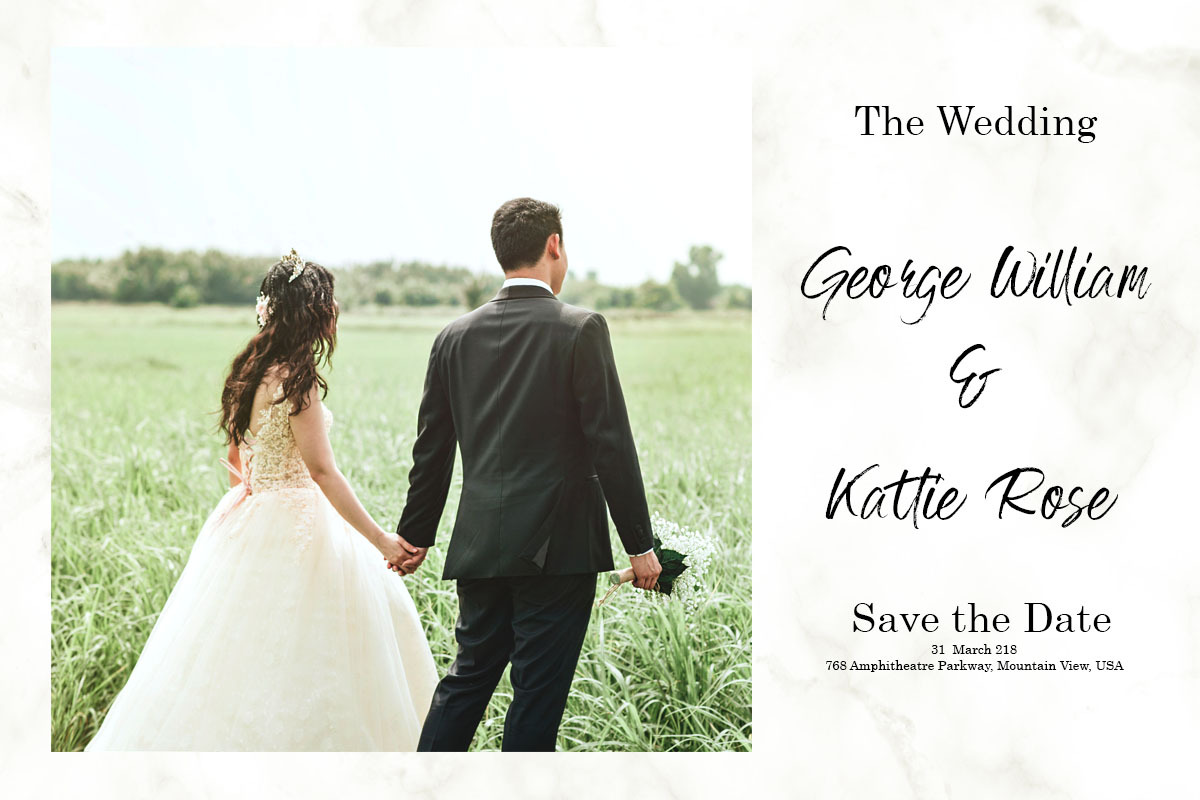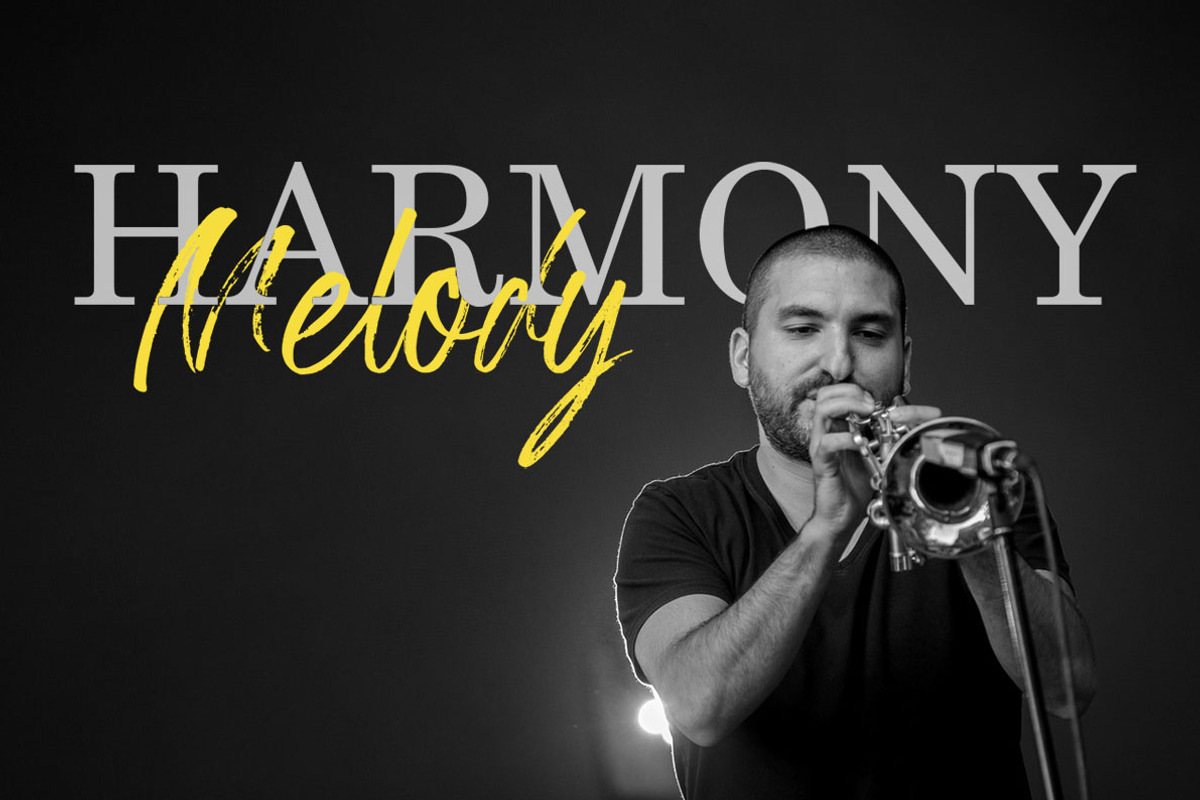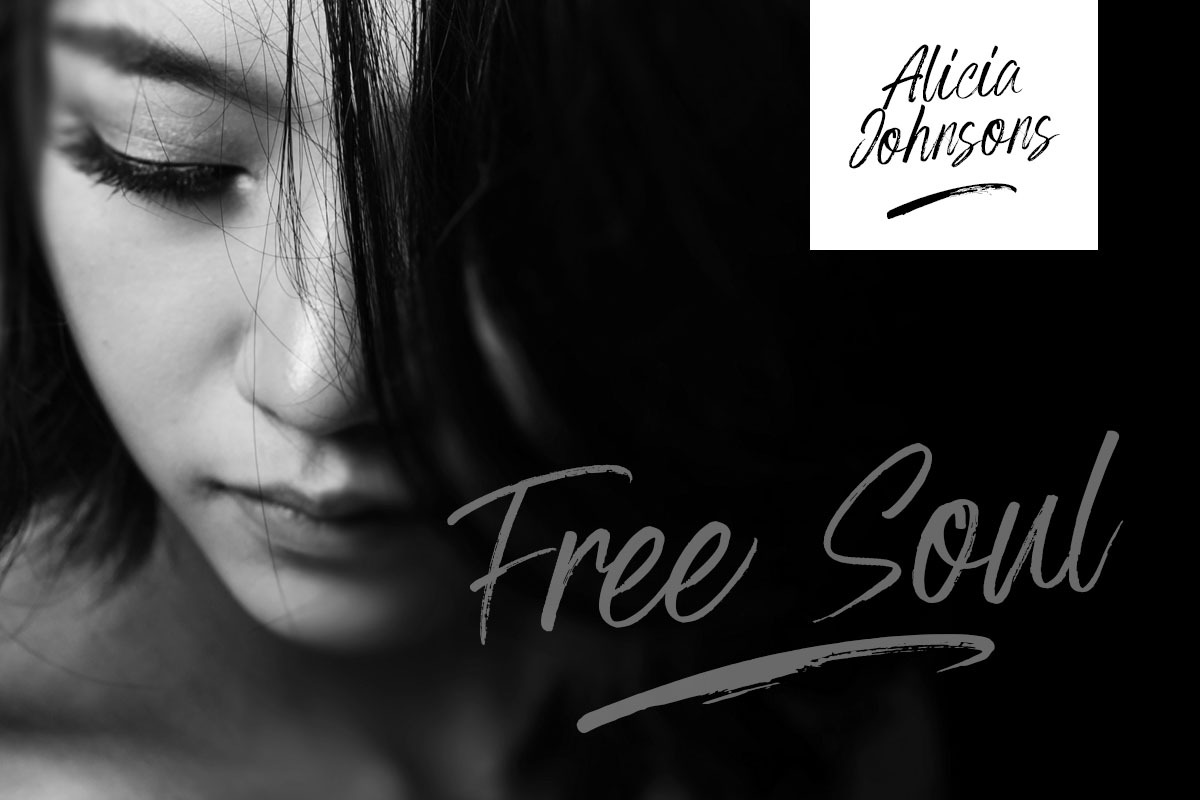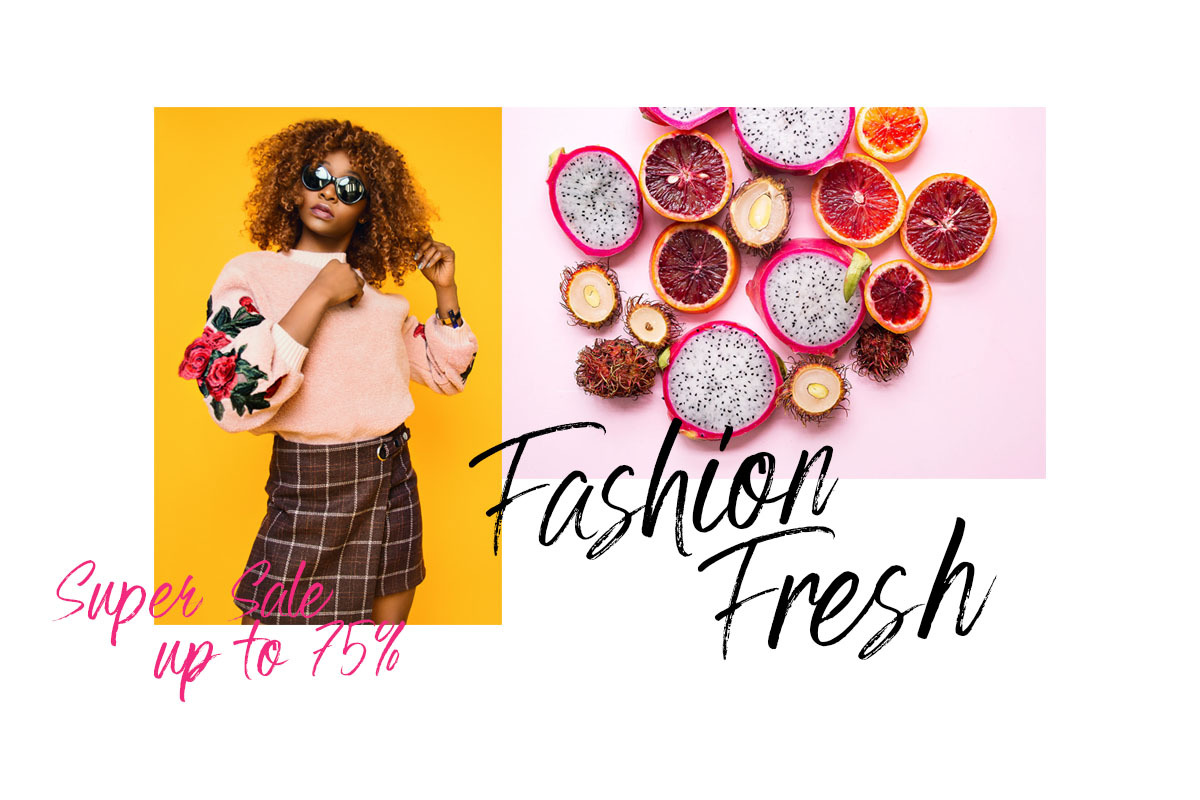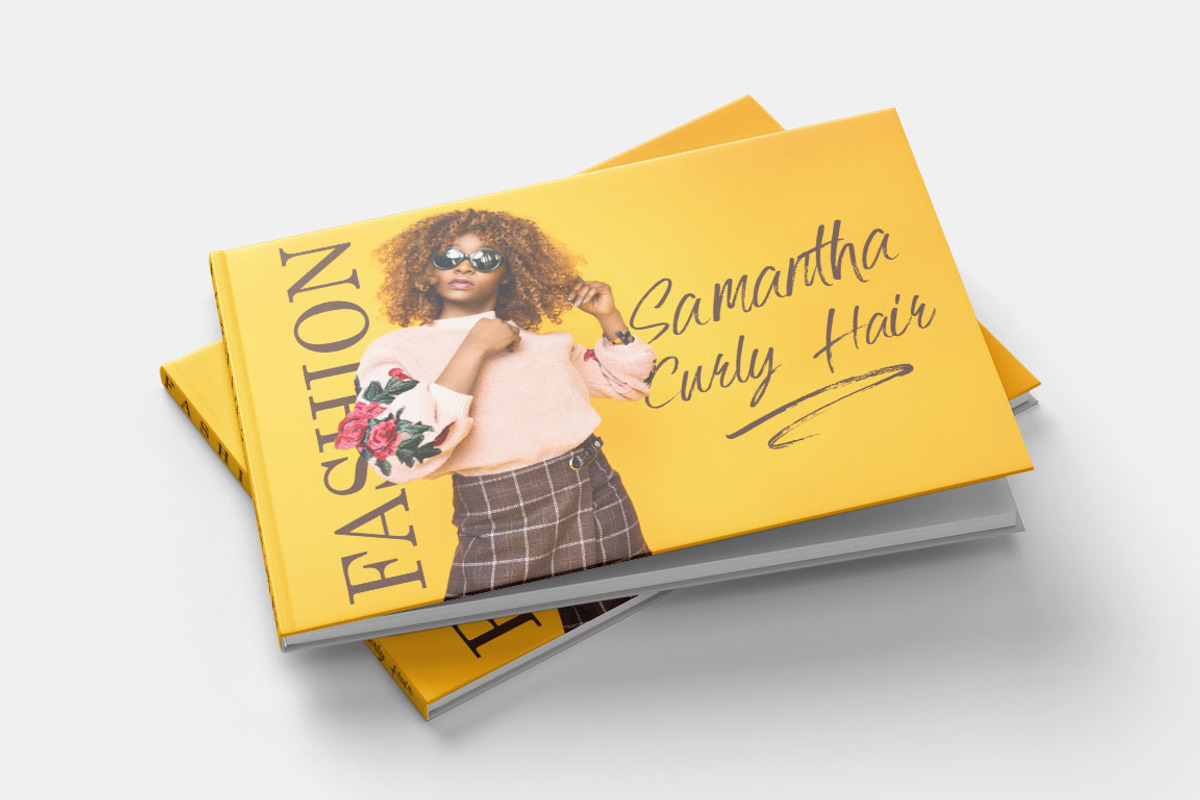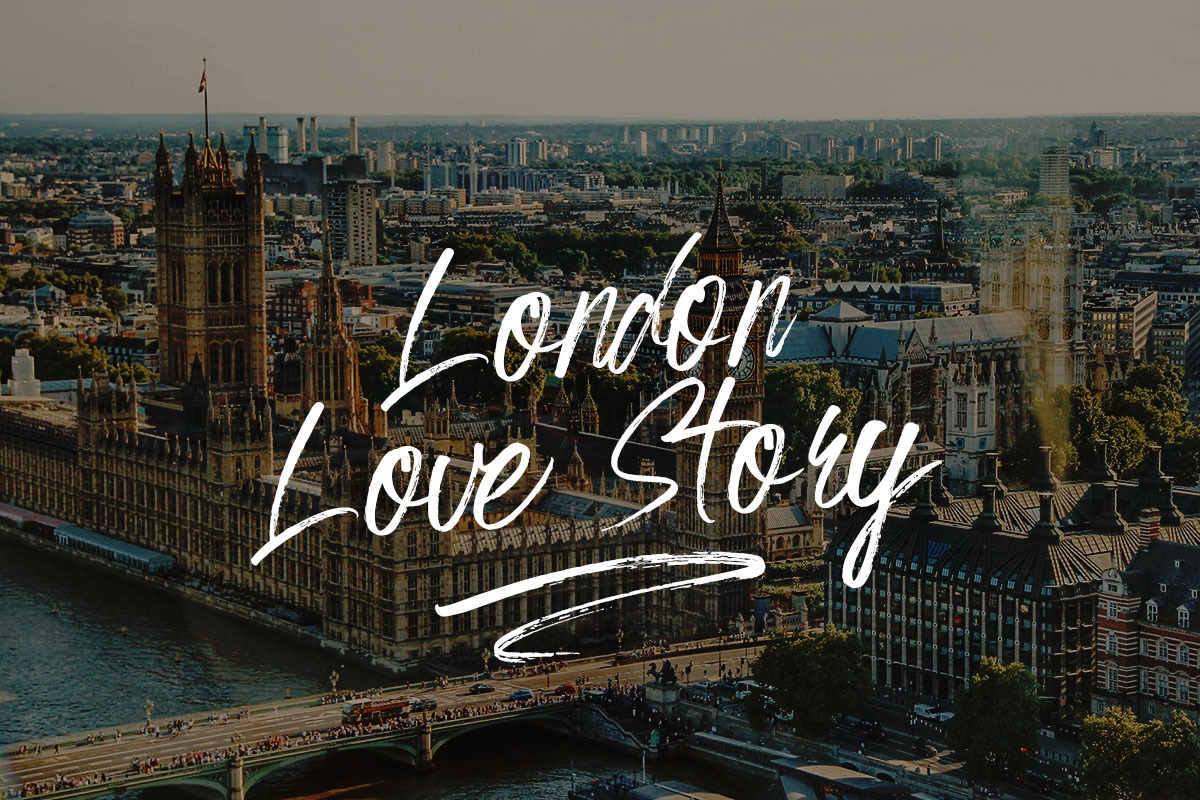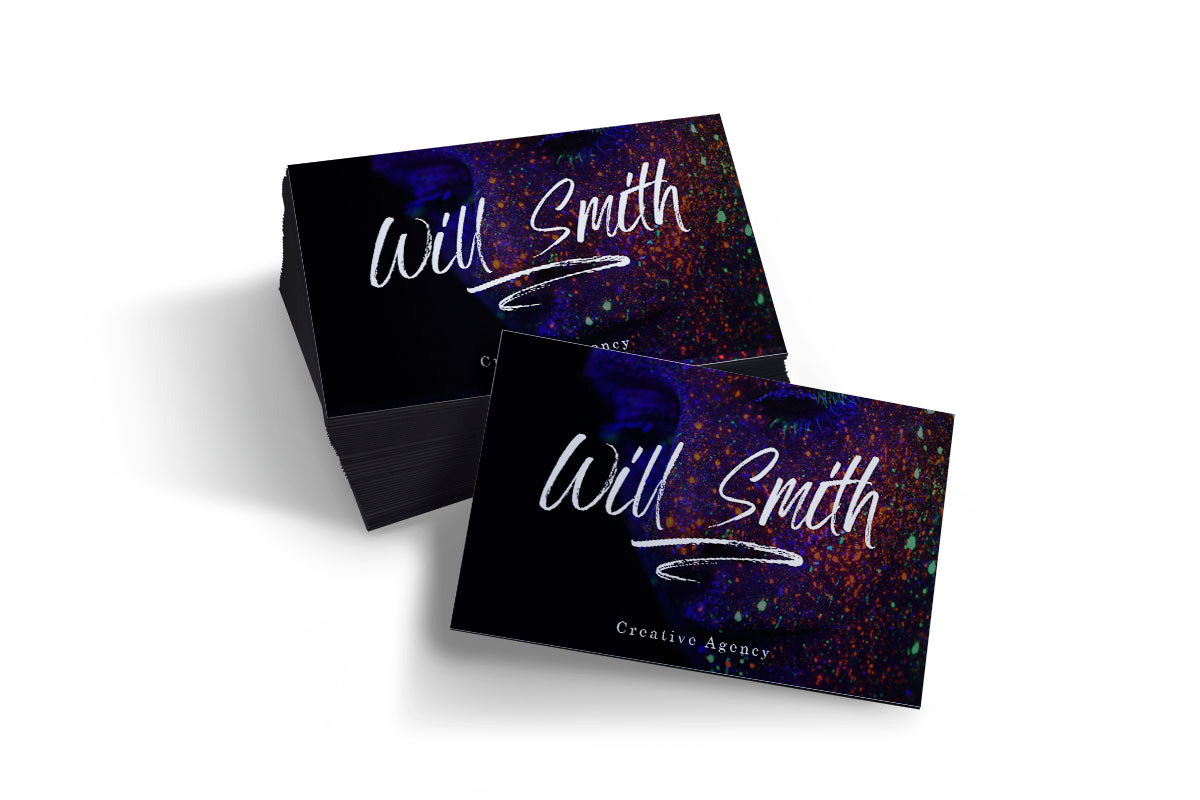
Grumpys ~ Brush Font
Introducing, Grumpys Script Typeface with brush effect. give your design with touch of Brush Effect. this typeface is handmade lettering with vector editing.Grumpys is suitable for various design projects like Card, T-Shirt, Apparel,Stationary,Book Template, and many more.
Grumpys ~ Brush Font by Youthlabs Studio fits naturally into Branding, posters, packaging, typography.